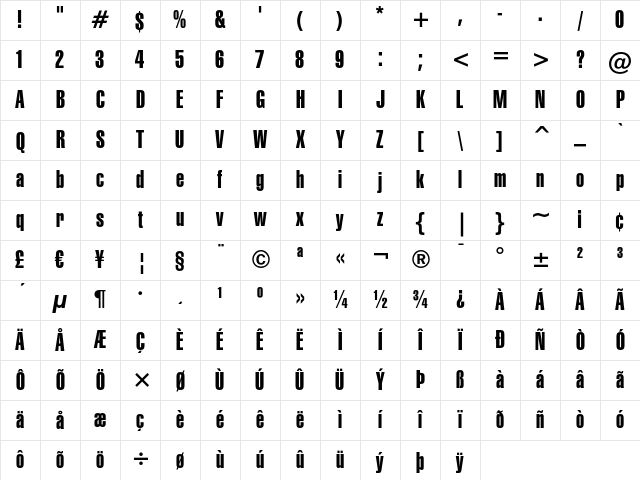
Complete Swiss 911 Extra Compressed glyph index. Displaying only characters natively supported by Swiss 911 Extra Compressed font.
Swiss 911 is a composed and adaptable typeface that performs quietly and consistently across a wide range of design contexts.